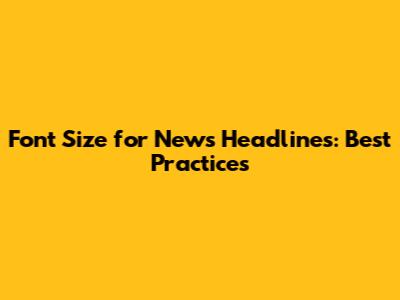
Font Size For News Headlines: Best Practices
Choosing the right font size for news headlines is super important! It's one of the first things readers notice, and it can really affect how they perceive the importance and readability of your content. Let's dive into why font size matters, some best practices, and how to make sure your headlines grab attention for all the right reasons.
Why Font Size Matters in News Headlines
Font size, guys, is a big deal when it comes to news headlines. Think about it ā the headline is the first thing people see. Itās your chance to make a killer first impression and pull them into the story. Hereās why getting it right is so crucial:
Readability
First and foremost, readability is king. If your headlines are too small, people will struggle to read them. And let's be real, ain't nobody got time for that! Making your font size comfortable ensures that readers can quickly grasp the main point of your article without straining their eyes. This is even more important on mobile devices, where screen real estate is limited. A clear, legible headline makes a world of difference. Think of it as inviting your readers in, rather than putting up a barrier.
Visual Hierarchy
Font size helps establish a visual hierarchy on your page. The headline should be the largest text element, clearly indicating that it's the most important piece of information. Subheadings can be smaller, and body text even smaller still. This hierarchy guides the reader's eye and helps them understand the structure of your content at a glance. When headlines are appropriately sized, they stand out and draw attention, making it easier for readers to decide what to read first. Itās like creating a roadmap for your content.
Tone and Emphasis
The size of your headline font can also convey a specific tone or emphasis. A larger font size can suggest urgency, importance, or excitement. Think about those bold headlines you see on breaking news stories ā they're designed to grab your attention and signal that something significant has happened. On the other hand, a smaller font size might be used for more subdued or analytical pieces. Itās all about matching the visual presentation to the content of the story.
Mobile Responsiveness
In today's mobile-first world, your font sizes need to be responsive. This means they should adjust automatically to fit different screen sizes. A headline that looks great on a desktop might be too small on a smartphone. Using relative units like percentages or viewport width (vw) can help ensure that your headlines remain readable and visually appealing across all devices. Always test your headlines on different devices to make sure they're working as intended. Nobody wants to squint to read your brilliant prose!
SEO (Search Engine Optimization)
While it's more indirect, font size can also influence your SEO. A readable and well-structured page encourages visitors to stay longer, which can improve your bounce rate and signal to search engines that your content is valuable. Additionally, using header tags (H1, H2, etc.) with appropriate font sizes helps search engines understand the hierarchy of your content, which can improve your rankings. So, while font size isn't a direct ranking factor, it plays a role in creating a user-friendly and SEO-friendly experience.
Best Practices for Headline Font Size
Alright, so now that we know why font size is so important, let's talk about some best practices. Hereās how to nail those headline font sizes and make your news stand out:
Desktop vs. Mobile
Desktop: For desktop headlines, a font size between 32px and 48px is generally a good starting point. This range ensures that your headlines are prominent without being overwhelming. Of course, the ideal size will depend on the font you choose and the overall design of your website.
Mobile: On mobile devices, you'll want to go a bit smaller to accommodate the smaller screen size. A font size between 24px and 32px usually works well. Again, test your headlines on different devices to make sure they're readable and visually appealing. Remember, thumb-friendly design is key!
Consider Your Font Choice
The font you choose can also affect the ideal font size. Some fonts appear larger than others, even at the same pixel size. For example, a bold, sans-serif font might look larger than a lighter, serif font. Experiment with different fonts and sizes to see what looks best on your site. Don't be afraid to mix and match until you find the perfect combination.
Use Relative Units
As mentioned earlier, using relative units like percentages or vw can help ensure that your headlines are responsive. For example, you could set your headline font size to 3vw, which means it will be 3% of the viewport width. This will automatically adjust the font size based on the screen size, ensuring that your headlines always look great.
Test, Test, Test!
Seriously, test your headlines on different devices and in different browsers. What looks good on your computer might not look so great on your phone. Use browser developer tools to simulate different screen sizes and make sure your headlines are readable and visually appealing across the board. User testing can also provide valuable feedback.
Conclusion
Choosing the right font size for your news headlines is a critical part of web design. It affects readability, visual hierarchy, tone, and even SEO. By following these best practices and avoiding common mistakes, you can create headlines that grab attention, engage readers, and help your content shine. So go ahead, experiment with different font sizes and styles, and find the perfect combination for your site. Your headlines (and your readers) will thank you for it!